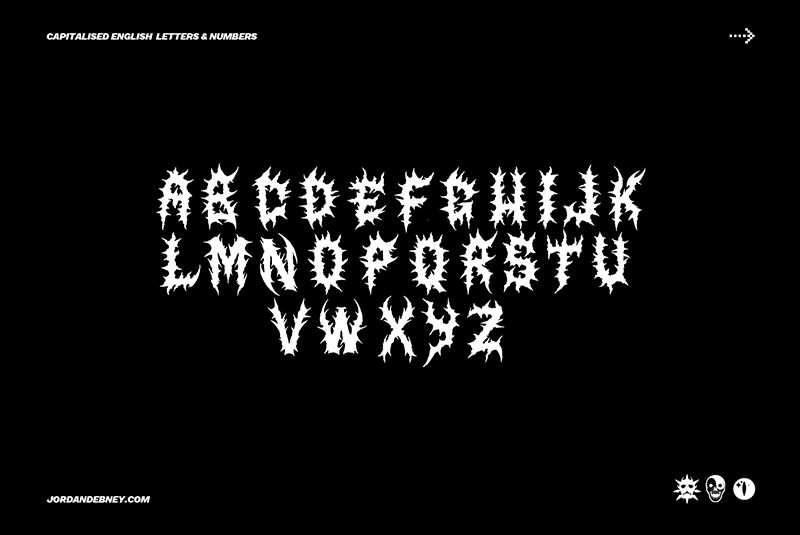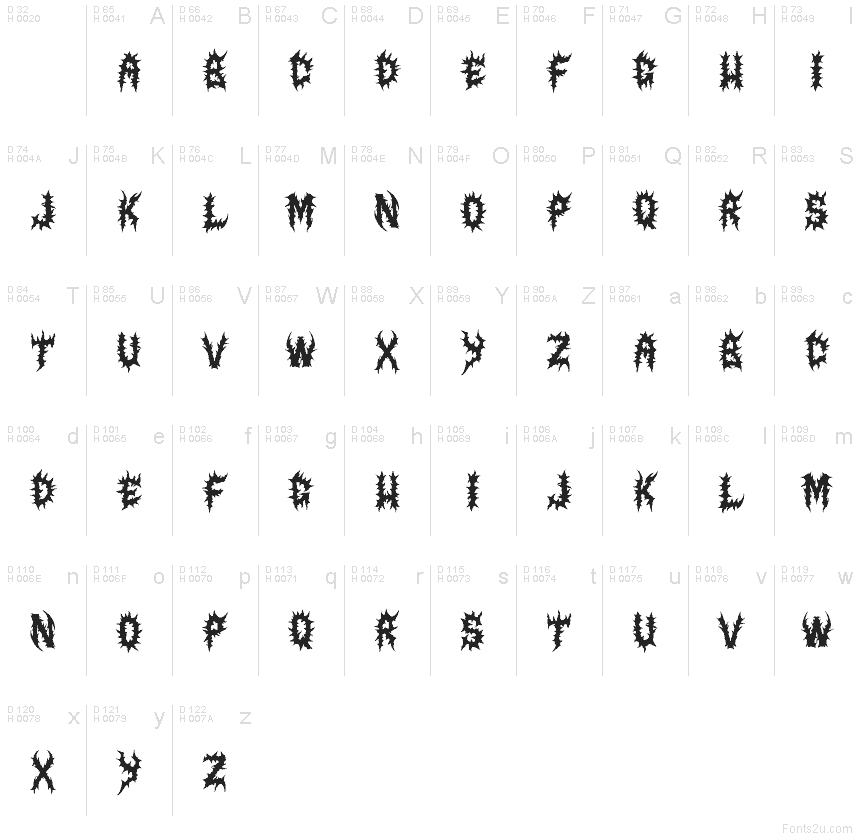
Jd-mutilation-basic font by Jordan Debney is a gothic modern font. The condensed width creates a dense chaotic appearance that carries an intense and even aggressive feel. Spiky shape edges complete this edgy rebellious creation. Hop on this horror-themed trip best captured in large size text applications.